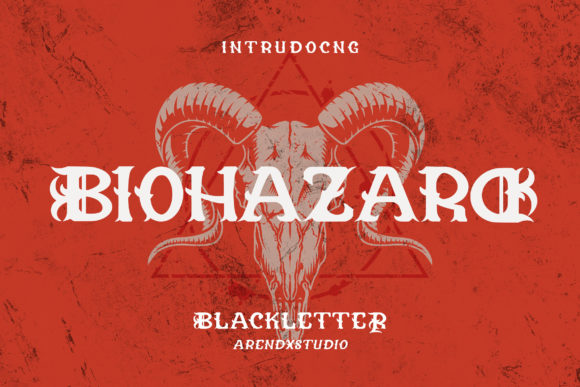
In a world where creativity and expression reign supreme, let us introduce you to Biohazard Font - a typographic masterpiece designed to ignite your imagination and leave an indelible mark on your audience. This exquisite blackletter font, meticulously crafted by the talented artists at Arendxstudio, transcends the ordinary, inviting you to explore a realm of boundless possibilities.
Embark on a captivating journey through the intricate details and distinct character of Biohazard Font. Each letter, meticulously rendered with precision and flair, exudes an aura of uniqueness, promising to elevate your designs to new heights. Whether you're creating captivating logos, eye-catching posters, or stunning social media graphics, Biohazard Font will become your trusted companion, transforming your ideas into unforgettable visual experiences.
Immerse yourself in the rich history of blackletter fonts, a timeless aesthetic that has captured the attention of artists for centuries. With Biohazard Font, you'll harness the power of this classic style, adding a touch of sophistication and timeless charm to your creations. Its bold strokes and mesmerizing flourishes command attention, ensuring that your messages will resonate with your audience, leaving a lasting impression that lingers in their minds long after they encounter your work.
Unlock the true potential of Biohazard Font with its PUA encoding, an innovative feature that grants you effortless access to a treasure trove of beautiful glyphs and swashes. Unleash your creativity as you incorporate these elegant embellishments into your designs, adding an extra layer of visual intrigue and personalization. The possibilities are endless, empowering you to craft designs that stand out from the crowd and captivate your audience.
With Biohazard Font, you'll discover a font that not only meets your needs but exceeds them, becoming an indispensable tool in your creative arsenal. Its versatility knows no bounds, effortlessly adapting to a wide range of design projects, from Christmas bags to website headers and everything in between. Experience the transformative power of Biohazard Font as it breathes life into your creative endeavors, transforming them into captivating masterpieces that leave your audience spellbound.
Don't settle for ordinary fonts that blend into the background. Embrace the boldness and distinction of Biohazard Font, a font that refuses to be ignored. Let your creativity soar as you harness its boundless potential, crafting designs that ignite emotions and leave a lasting impact. With Biohazard Font, you'll unlock a new level of creative expression, leaving your audience in awe of your typographic mastery.